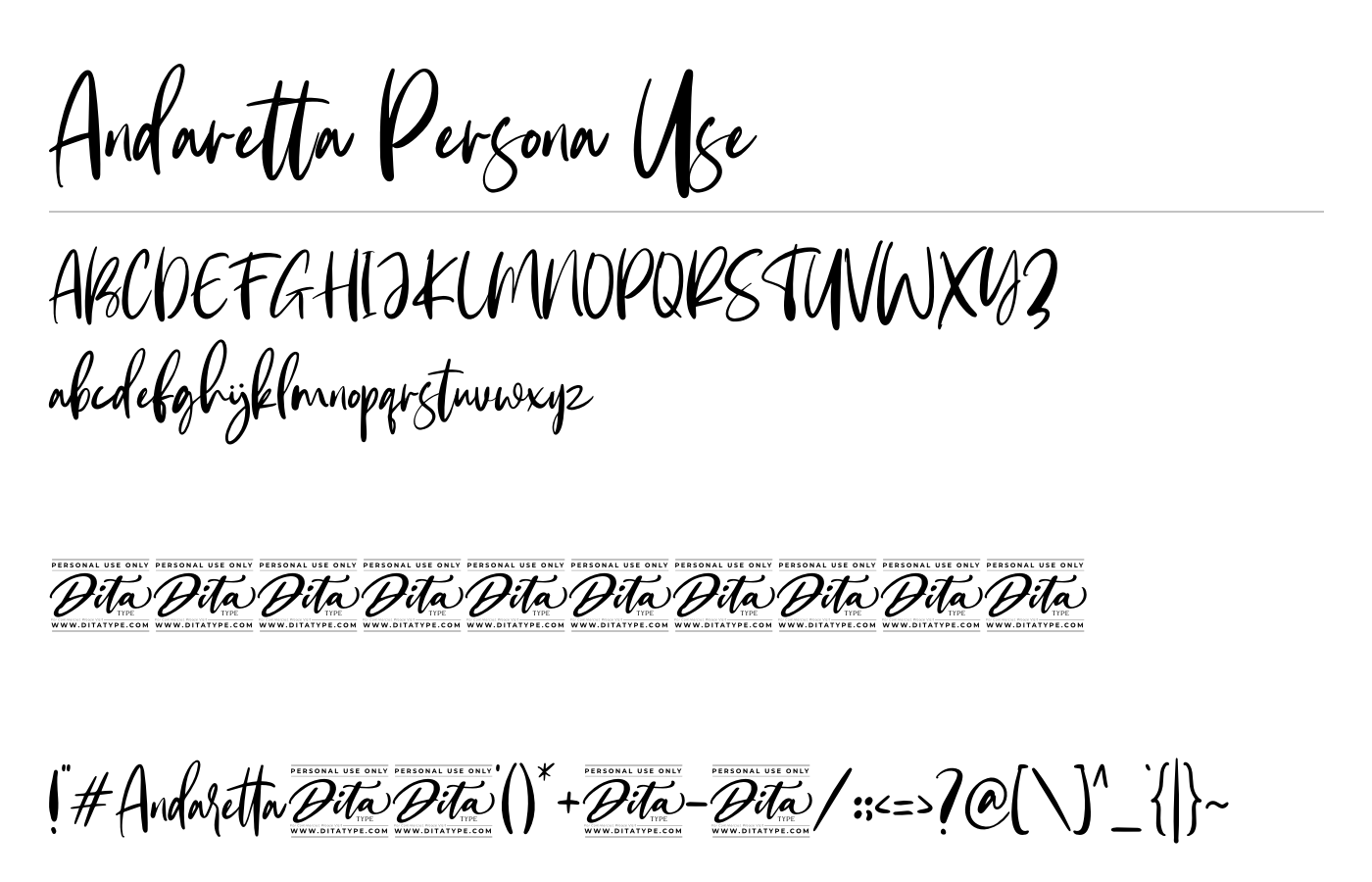
Andaretta Persona Use is a lively and modern handwritten script font with a casual, yet elegant feel. Its thin, flowing strokes and varied letter heights give it a natural, personal touch that works well for invitations, branding, and creative projects seeking a friendly and approachable style. This font is perfect for adding a unique, expressive personality to designs that want to stand out with a handwritten charm.
Andaretta Persona Use Font
About Andaretta Persona Use Font
| Font family | Andaretta Persona Use Font |